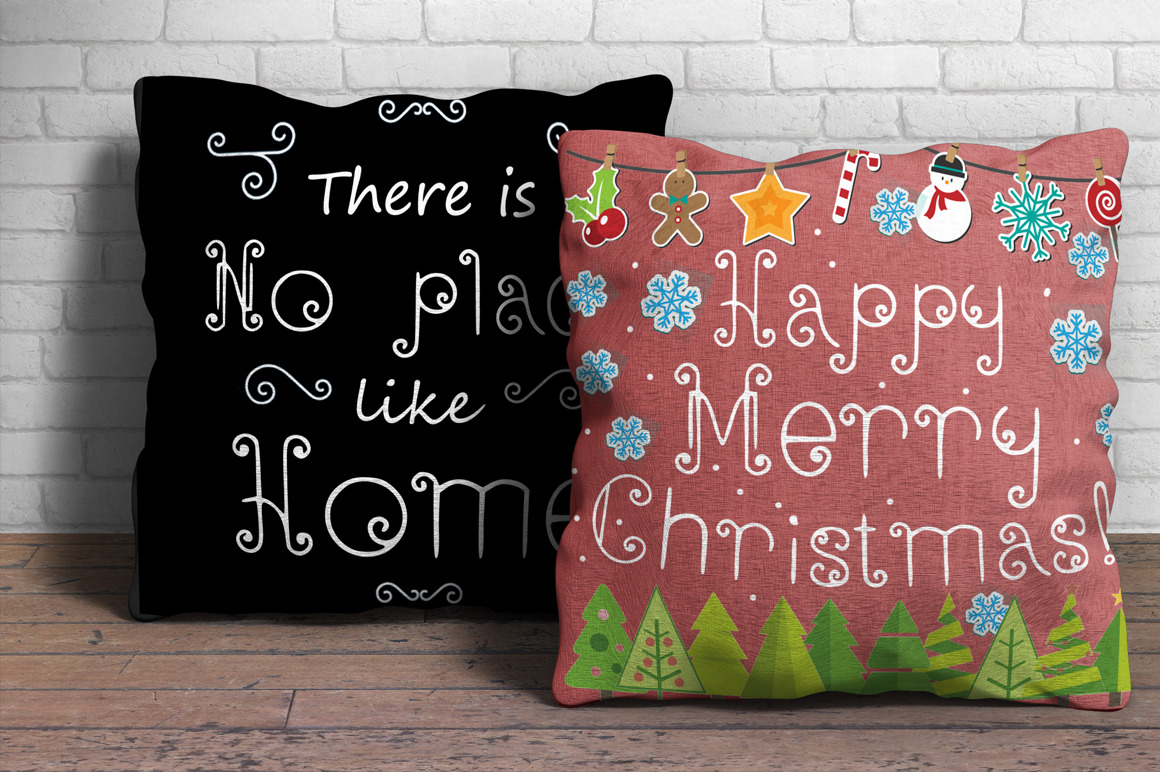
ElfLine decorative style font
Including over 300 different hand drawn glyphs in the font including a range of languages and dialects:
- (Latin-1 Supplement) ÀÁÂÃÄÅÆÇÈÉÊËÌÍÎÏÝ ÑÒÓÔÕÖØŒÙÚÛÜ àáâãäåæçèéêëìíîïñòóôõöðøœùúûüýÿ
- (Latin Extended-A) ĀāĂ㥹ĆćĈĉĊċČčĎďĐĒēĔĕĖėĘęĚěĜĝĞğĠġ ĤĥĨĩĪīĬĭĮįİıĹ弾ĿŀŃńŇňʼnŌōŎŏŐŐőŒœŔŕŘř ŚśŜŝŠšŤťŨũŪūŬŭŮůŰűŲųŴŵŶŷŸŹźŻżŽž